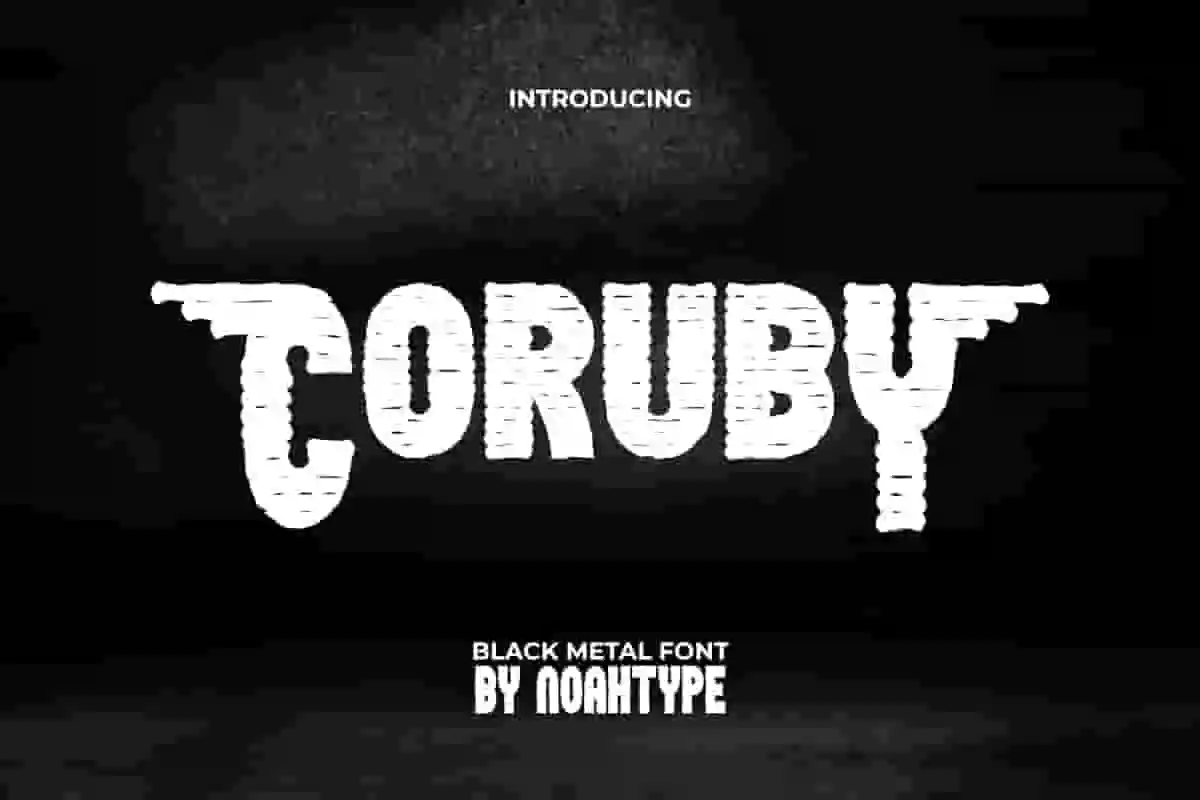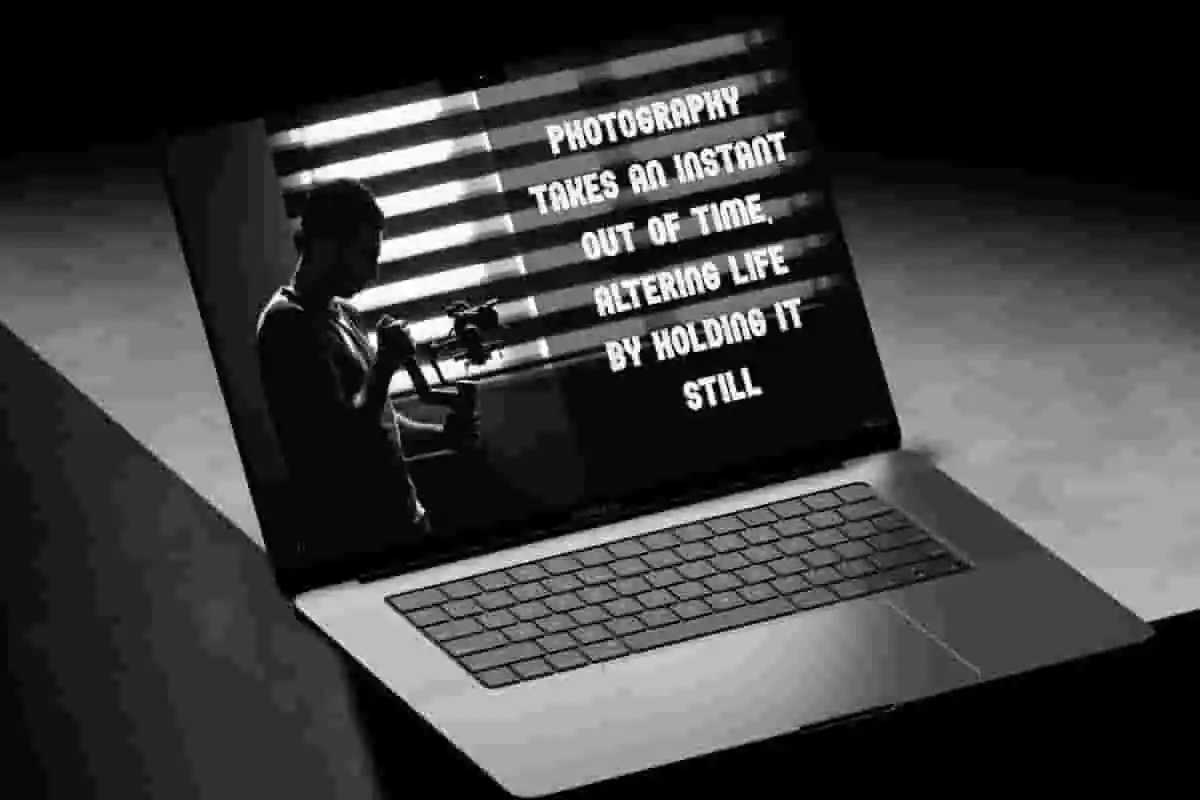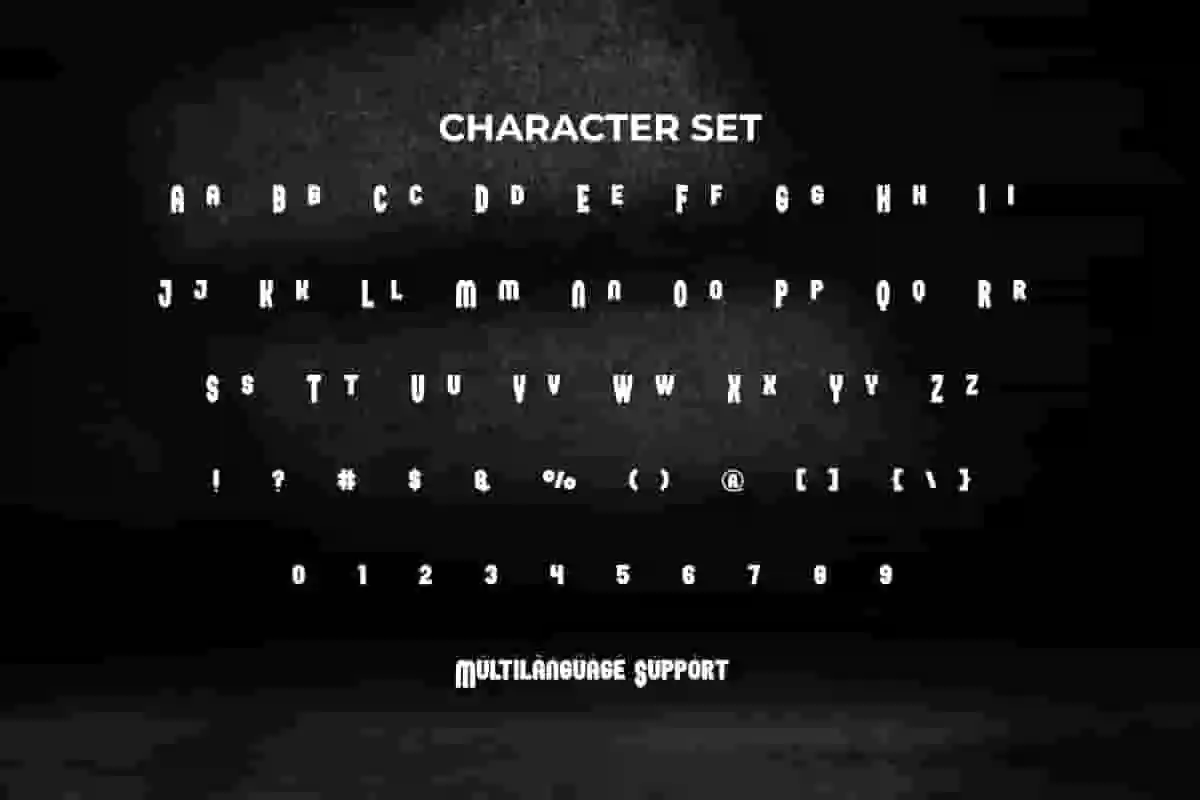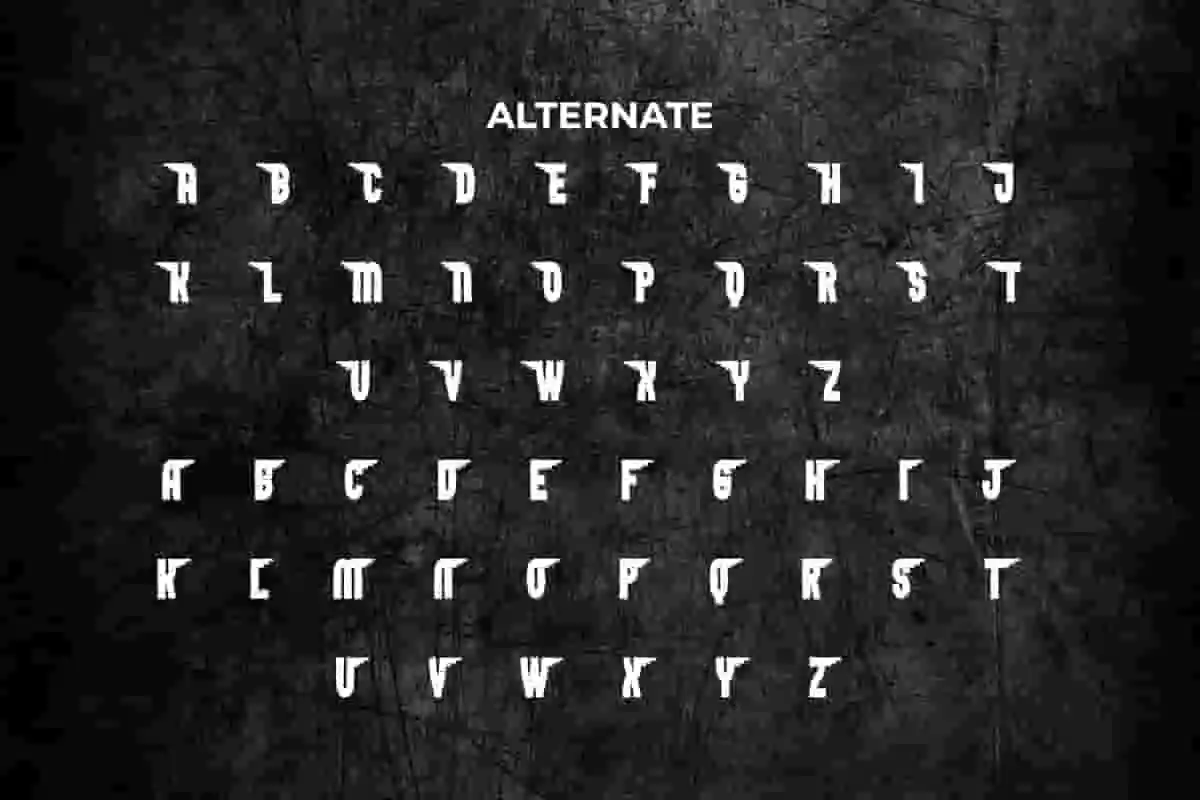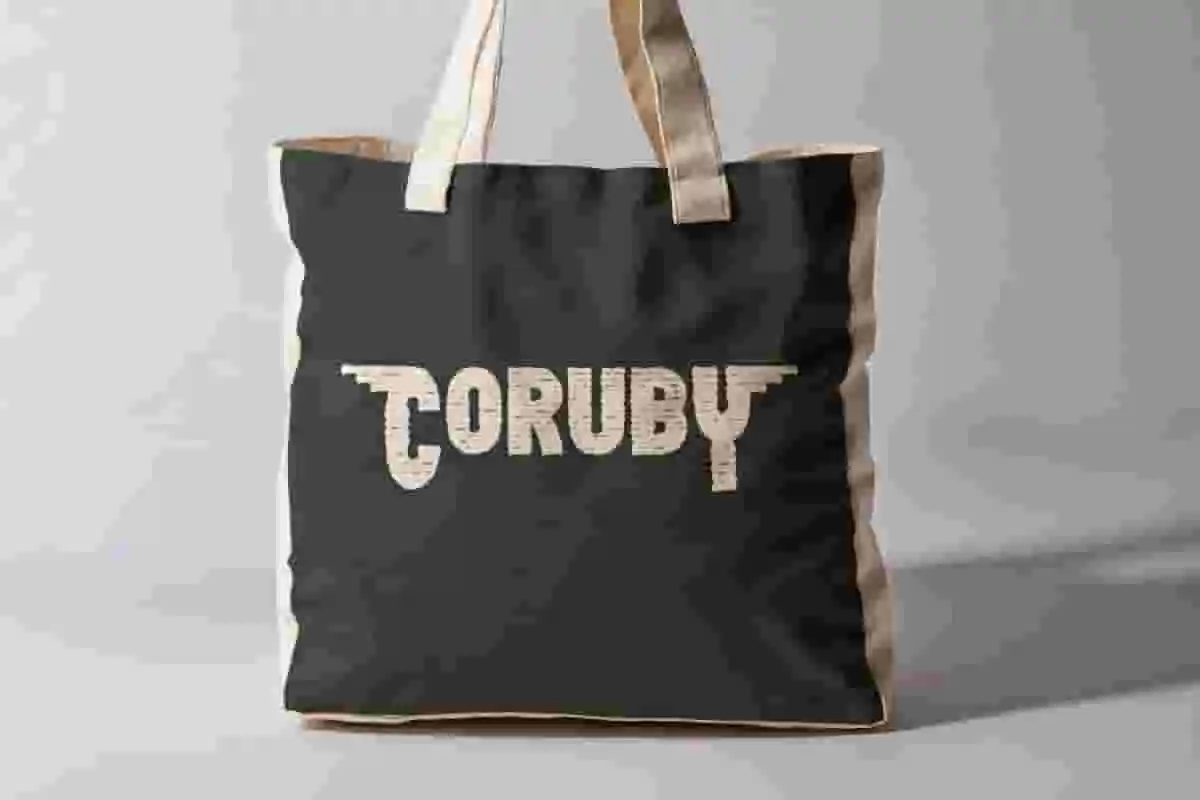
Coruby Font is an aero fighter inspired decorative Black Metal font by NoahType. This font has thick characters with the addition of thin lines so that it looks like it has a rough texture. It will be perfect for any designs, such as custom design, brand image, poster, label, invitation, cover, marketing material, menu, printing, product packaging, quotes, signage, website, and many more!
Coruby Font includes full set of ALL CAPS for Uppercase and Lowercase Basic Characters, Numerals, Punctuation, Symbol, and Alternate Character. This mysterious font will make your design awesome and also a perfect choice for many industries, such as game, movie, comic, music, accessories, advertising, art, café, event or festival, fashion, printing, publishing, etc.